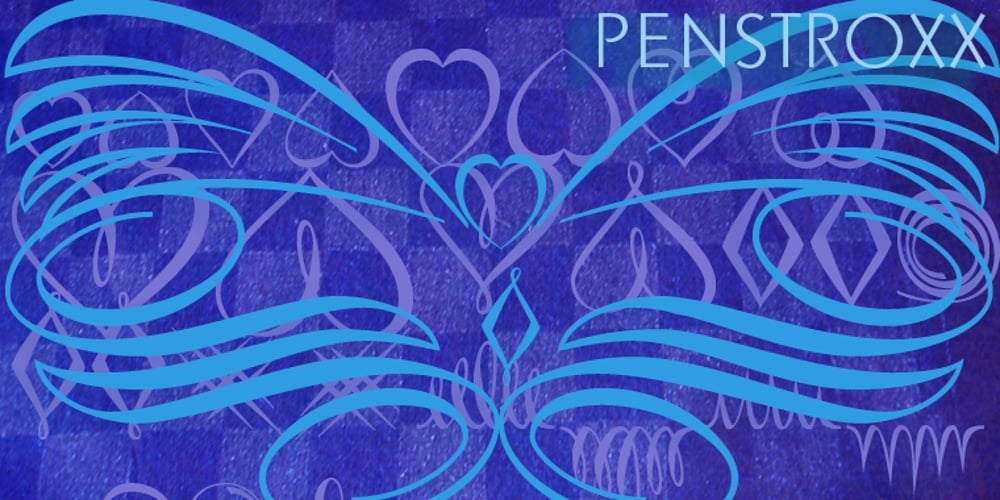
Penstroxx
Penstroxx font
Penstroxx Font Family was designed by Gert Wiescher and published by Wiescher Design. Penstroxx contains 10 styles and family package options. Penstroxx is a collection of 5 fonts that are based on the powerful, expressive Traits de plume (penstrokes) designed in Paris around 1930 by Alfred Latour. I designed a lot of extra penstrokes to make this a full set of glyphs. Instead of putting all mirrored glyphs into one set, I put the into 4 sets (A, B, C, D). A and B being the horizontal mirrored ones – and – C and D being the vertical mirrored ones. Lots of these join! The fifth set is S for symmetrical! The symmetrical glyphs can be used as middle-, start- or the end pieces. I hope it is clear what I mean. I sell all five sets – since they belong together – for the price I usually charge for one font. Your crafty font designer Gert Wiescher